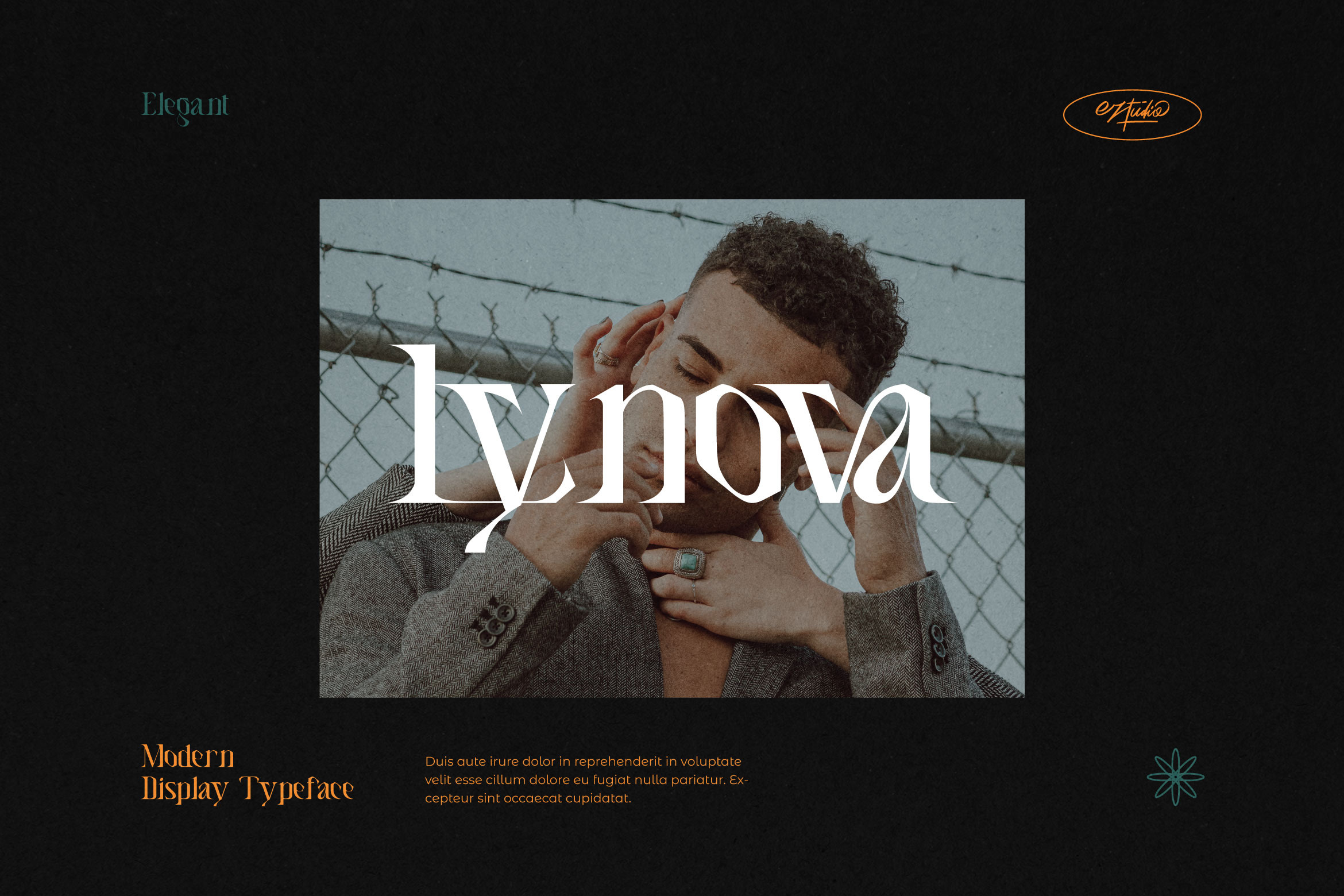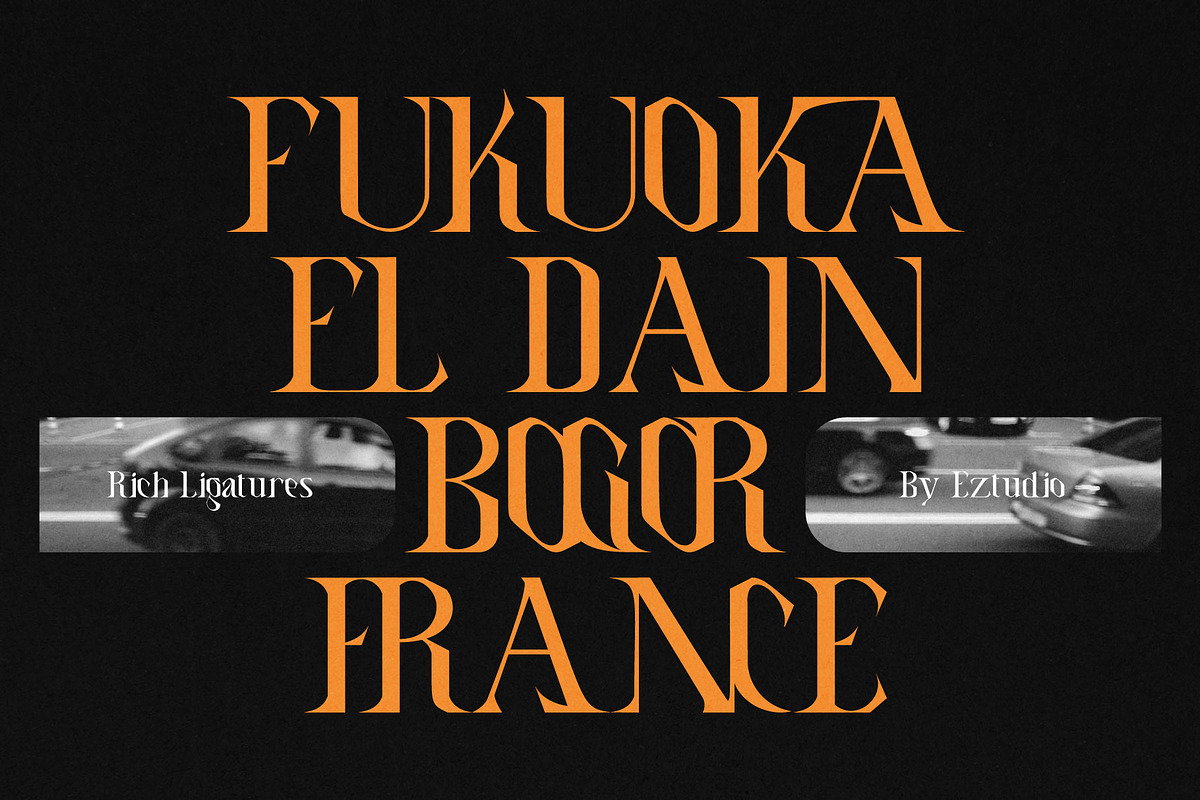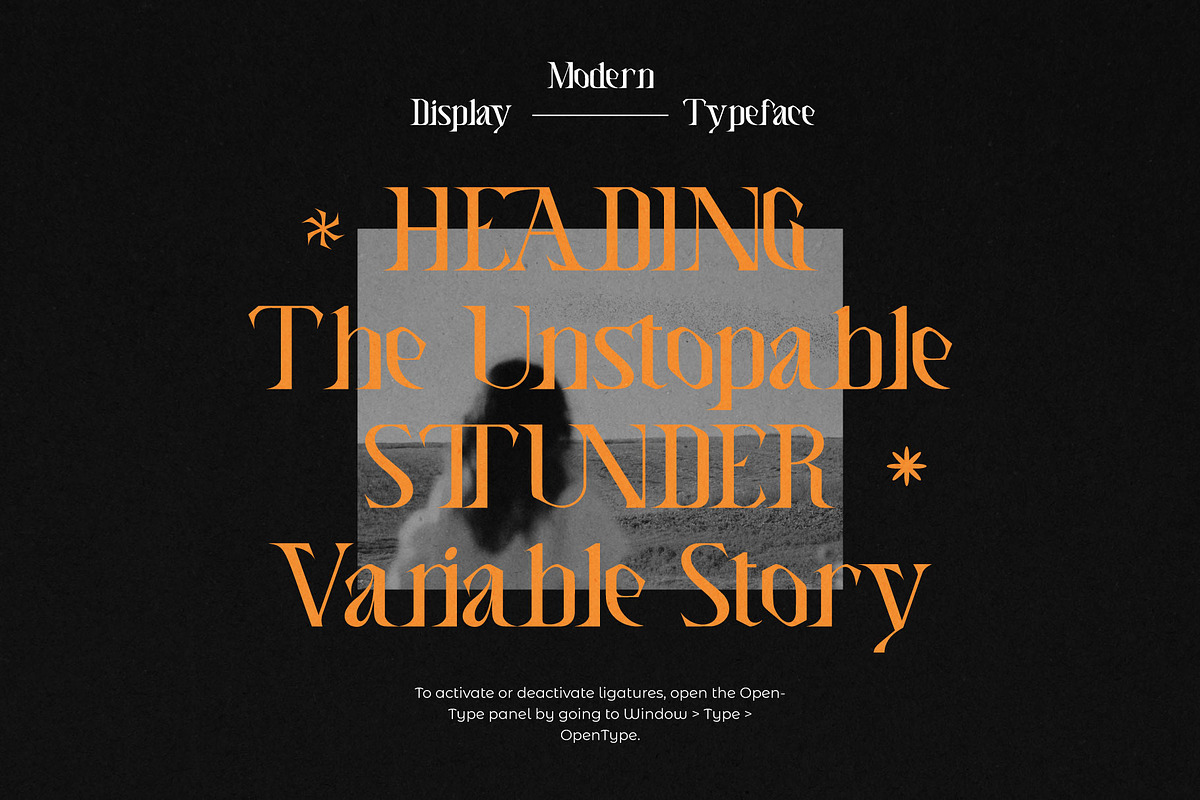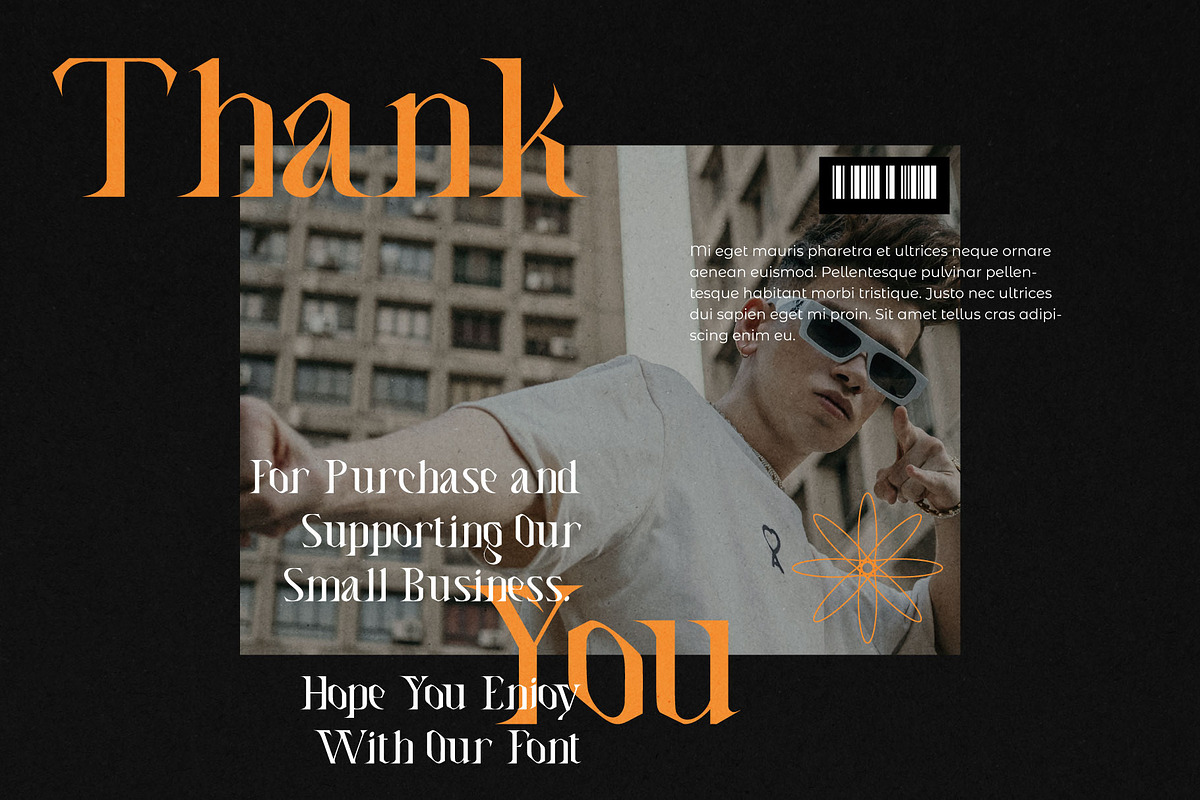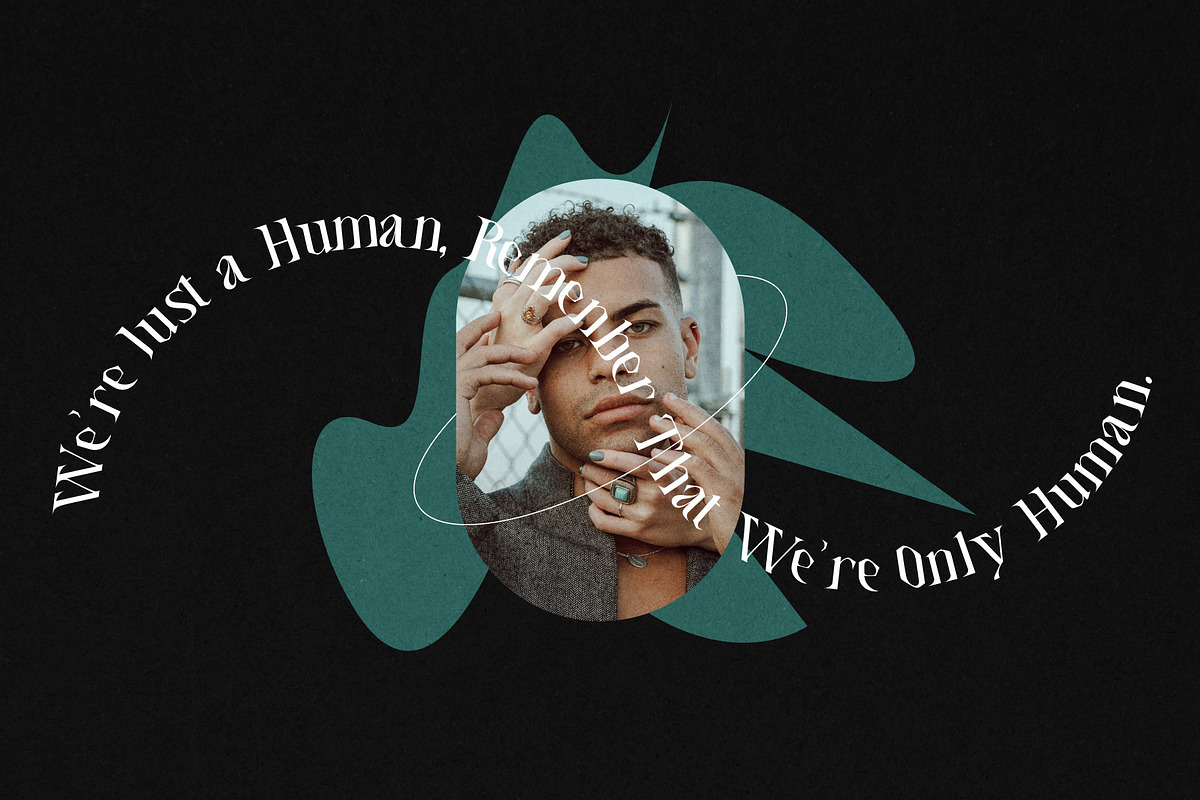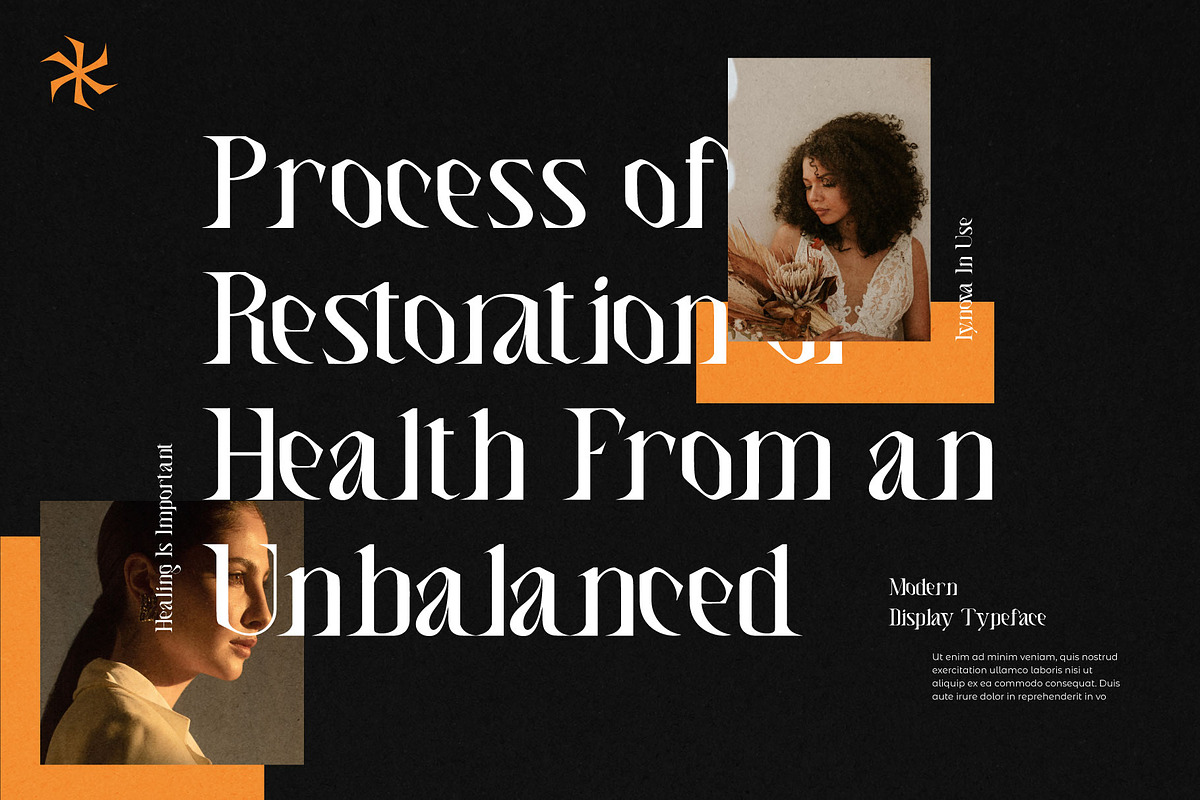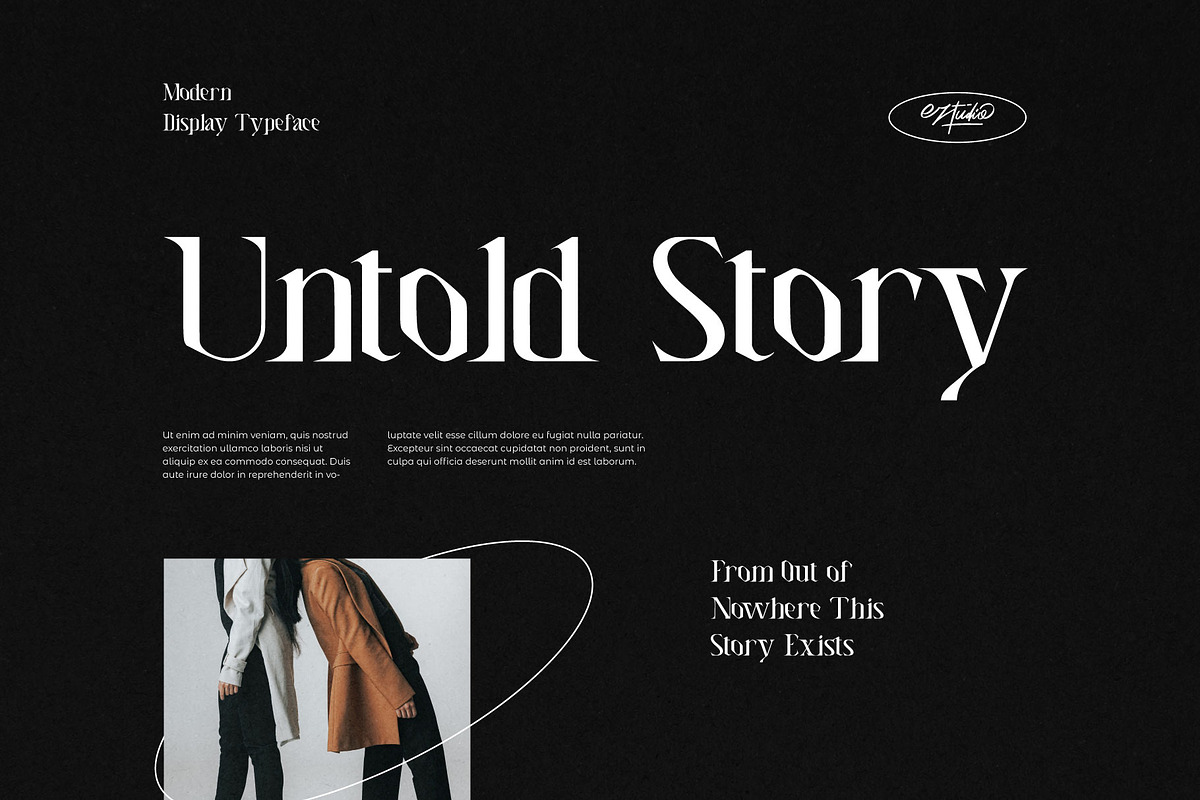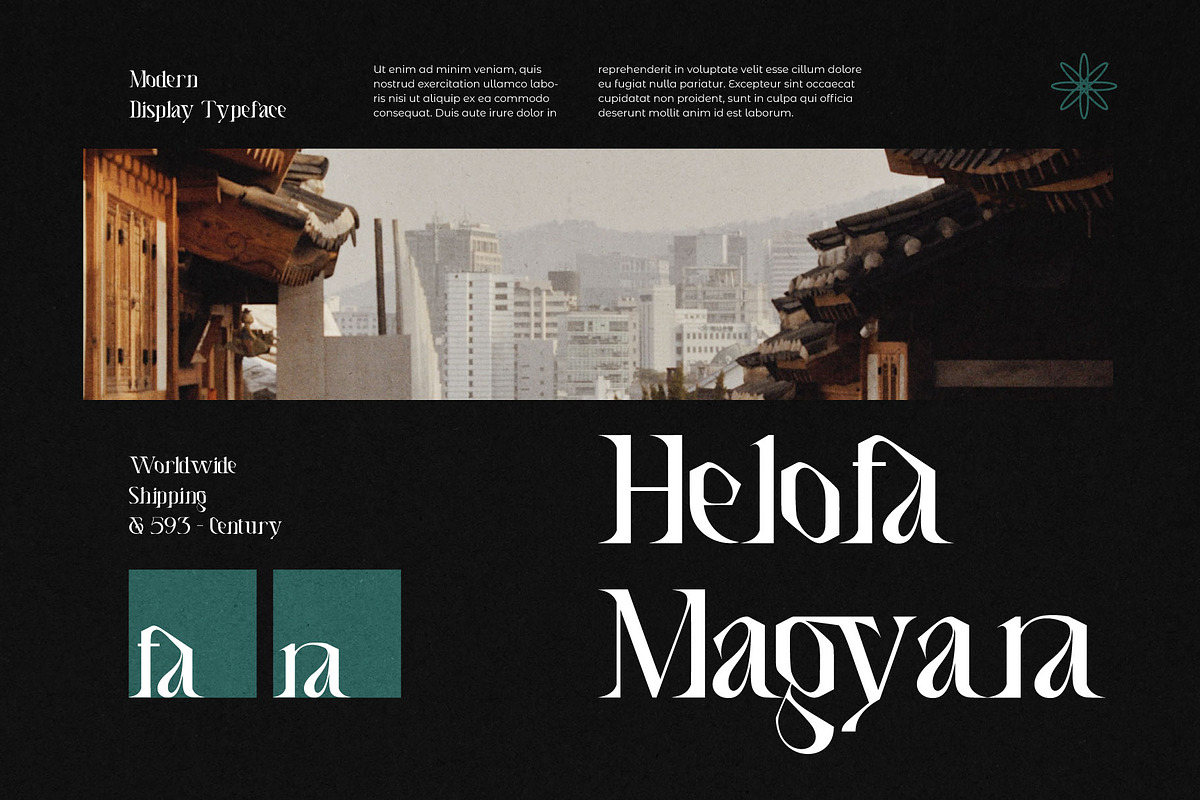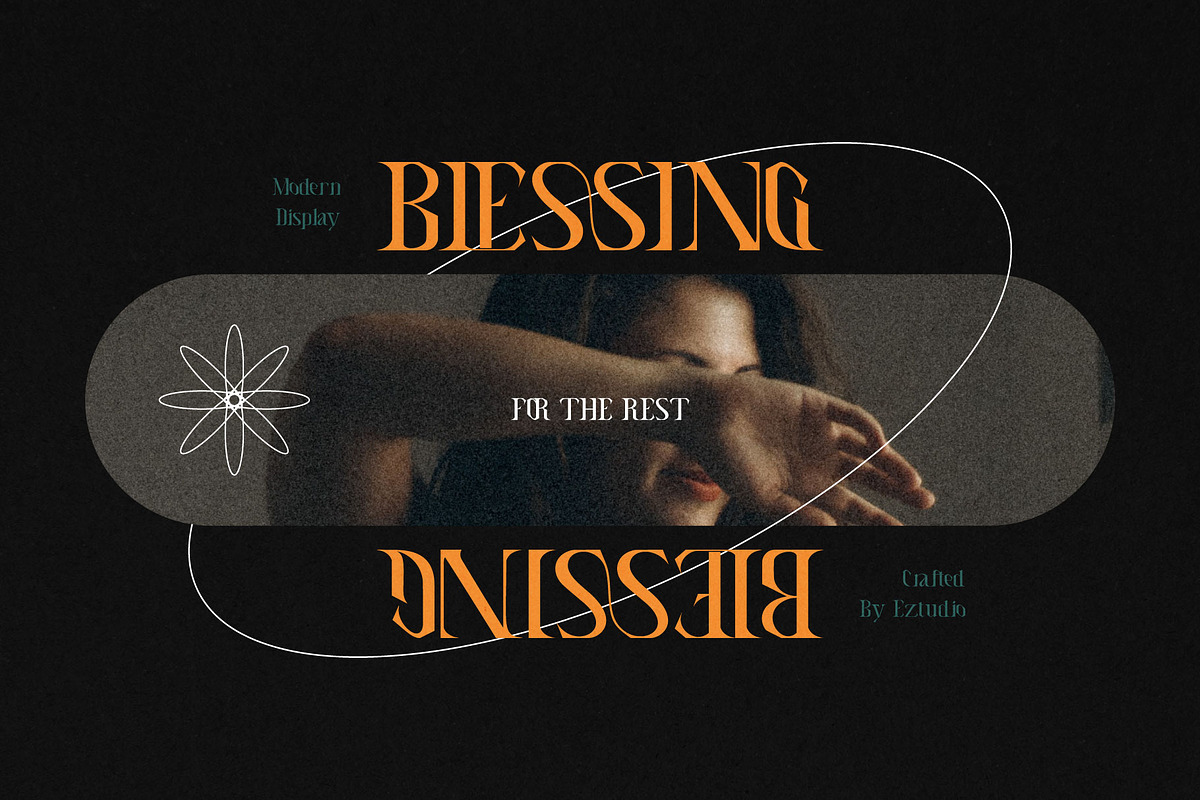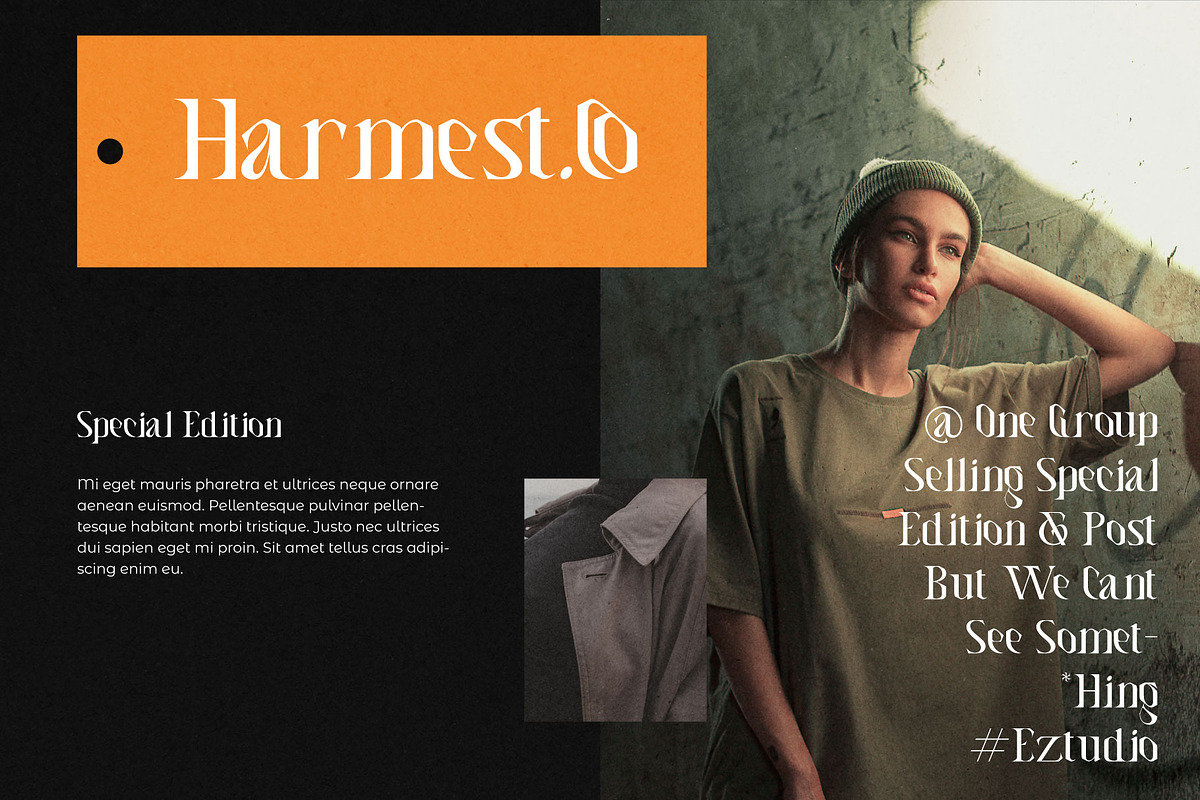
Lynova - Unique Display Font
Lynova is a uniquely designed and detailed display font. It is ideal for posters, labels, branding and so much more. Add it confidently to your favorite creations and let yourself be amazed by the outcome generated.
The Lynova font includes:
- Uppercase Letters
- Lowercase Letters
- Special Characters
- Multilingual Glyphs